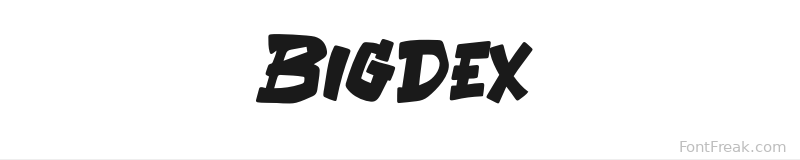
Bigdex
About Bigdex
Bigdex, created by Syaf Rizal, is an eye-catching display font that combines boldness with uniqueness, making it an excellent choice for various design projects. This font exhibits a dynamic, playful style that stands out due to its irregular stroke weight and lively character shapes. The letters are slightly rounded, giving them a friendly and approachable appearance, while the overall design maintains a strong presence that is perfect for grabbing attention.
The visual characteristics of Bigdex include its contrasting strokes, which create a sense of movement and energy. The spacing between letters is well-balanced, ensuring legibility while maintaining a whimsical feel. The font does not incorporate excessive decorative elements, allowing its natural charm to shine through. This simplicity, combined with the bold nature of the design, makes Bigdex suitable for a wide range of applications.
Best use cases for Bigdex include vibrant wedding invitations that require a touch of personality, engaging movie posters that need to capture the viewer’s attention, trendy restaurant menus that aim to stand out, and eye-catching social media graphics meant for content creators looking to make an impact. Its versatility also makes it a favored choice among graphic designers and small business owners who want their branding to reflect a modern and friendly vibe.
What sets the Bigdex font apart is its ability to balance playfulness with professionalism. This font not only adds a distinctive flair to your designs but also conveys a sense of creativity and innovation. With the Bigdex font free download, you can easily integrate this striking typeface into your projects, ensuring that your designs leave a lasting impression. Embrace the charm of Bigdex and elevate your creative endeavors with this remarkable font.